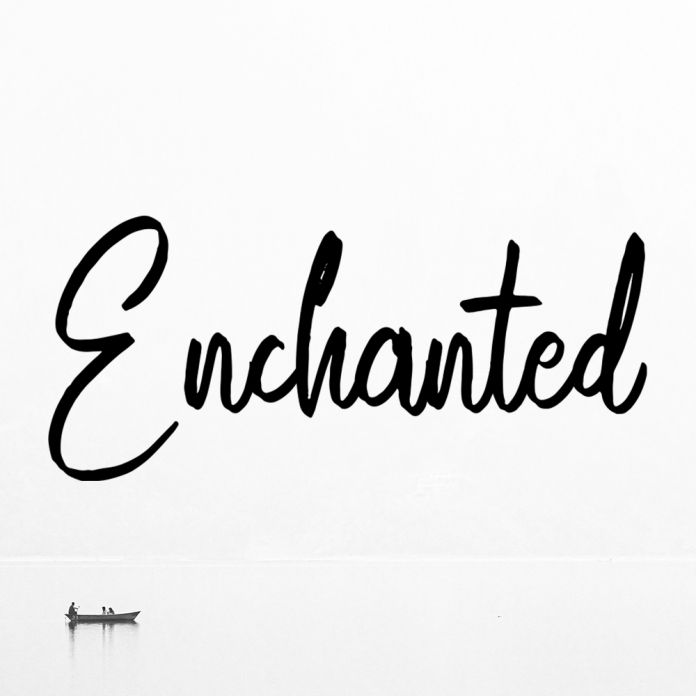
Enchanted is an elegant and flowing handwritten font. It has varied baselines, smooth lines, beautiful glyphs, and stunning alternates. It maintains a classy calligraphic influence while feeling contemporary and fresh. Fall in love with this font and take your projects to the highest level!